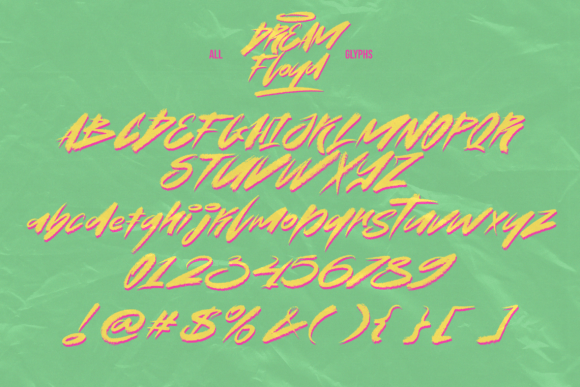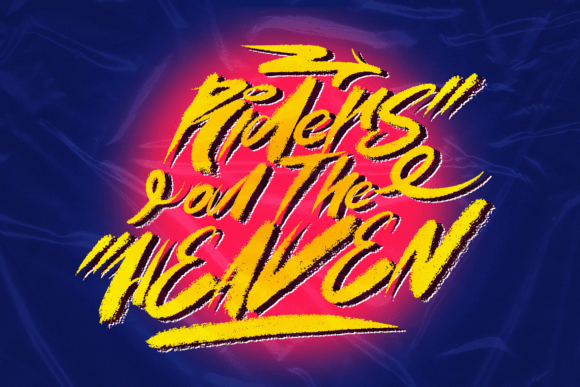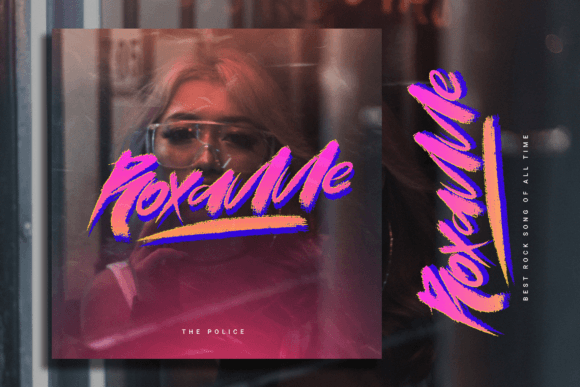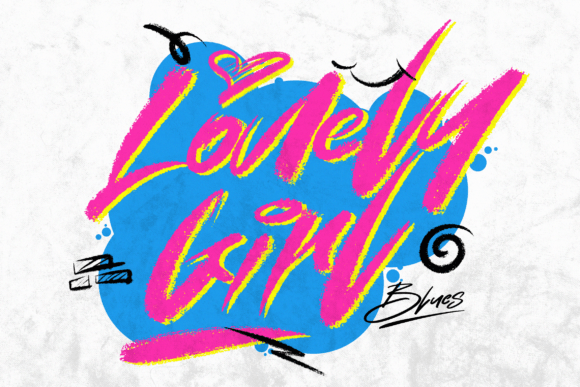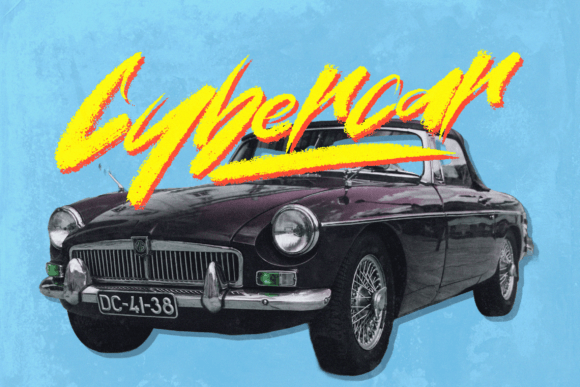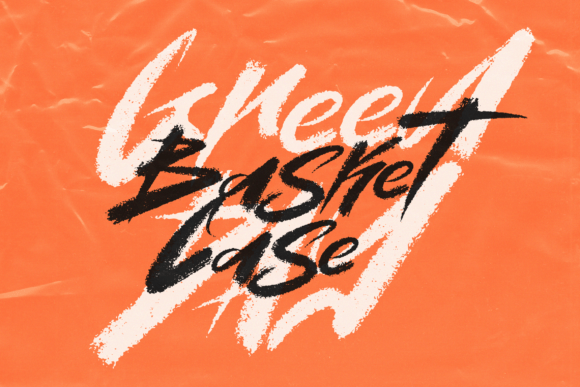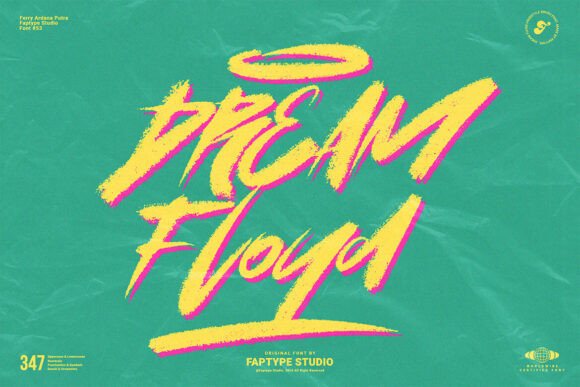
Dream Floyd Font: Where Retro Charm Meets Modern Creativity
In the world of typography, few fonts manage to capture the essence of vintage design while still feeling fresh and contemporary. Dream Floyd, a captivating retro brush font, is one such gem that brings the spirit of the past into modern creative projects. With its bold, expressive strokes and nostalgic charm, Dream Floyd is perfect for designers and crafters looking to add a distinctive, handcrafted touch to their work.
The Essence of Dream Floyd
Dream Floyd is more than just a font; it’s an experience. Its bold, expressive strokes evoke the artistic flair of the past, reminiscent of classic posters, logos, and advertisements from bygone eras. The font’s textured brush style delivers authenticity and character, making it ideal for creating standout logos, eye-catching posters, packaging, and unique branding.
Key Features of Dream Floyd
- Retro Aesthetic: Dream Floyd boasts a distinctly retro feel, with bold, expressive strokes that recall the golden age of graphic design.
- Textured Brush Style: The font’s textured brush style gives it a handcrafted, authentic look that’s perfect for adding character to your designs.
- Versatility: Dream Floyd is incredibly versatile, suitable for a wide range of projects, from logos and posters to packaging and branding.
- Modern Twist: While Dream Floyd is rooted in retro design, it also has a fresh, energetic feel that makes it perfect for modern creative projects.
Dream Floyd is a dream come true for designers and crafters looking to elevate their projects with a touch of nostalgia and creativity. Whether you’re working on a creative campaign or a personal project, this font provides the visual impact needed to make your designs unforgettable. With Dream Floyd, you can:
- Create standout logos that capture the essence of your brand.
- Design eye-catching posters that grab attention.
- Develop unique packaging that sets your product apart.
- Establish a strong brand identity with a distinctive, handcrafted look.
Why Choose Dream Floyd?
In a world where design trends come and go, Dream Floyd offers a timeless appeal that will never go out of style. By choosing Dream Floyd, you’re not just selecting a font; you’re investing in a design solution that will elevate your projects and leave a lasting impression on your audience.
Here are just a few reasons why Dream Floyd stands out:
- Uniqueness: Dream Floyd’s textured brush style and retro aesthetic make it a unique addition to any design project.
- Authenticity: The font’s handcrafted look and feel deliver authenticity and character, setting it apart from more generic fonts.
- Versatility: Dream Floyd can be used across a wide range of projects, making it a valuable addition to any designer’s toolkit.
Tips for Using Dream Floyd
To get the most out of Dream Floyd, here are a few tips to keep in mind:
- Experiment with Sizes: Dream Floyd looks great in a variety of sizes, from large headlines to smaller body text.
- Play with Colors: The font’s textured brush style lends itself well to bold, vibrant colors that really make it pop.
- Mix and Match: Don’t be afraid to combine Dream Floyd with other fonts to create a unique look that reflects your brand’s personality.
Dream Floyd is a captivating retro brush font that brings the spirit of vintage design into modern creative projects. With its bold, expressive strokes and nostalgic charm, it’s perfect for designers and crafters looking to add a distinctive, handcrafted touch to their work. Whether you’re creating standout logos, eye-catching posters, packaging, or unique branding, Dream Floyd provides the visual impact needed to make your designs unforgettable. Elevate your projects with the timeless appeal of Dream Floyd—where retro meets contemporary creativity.